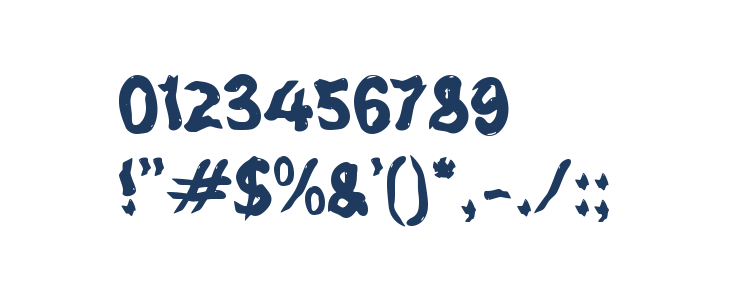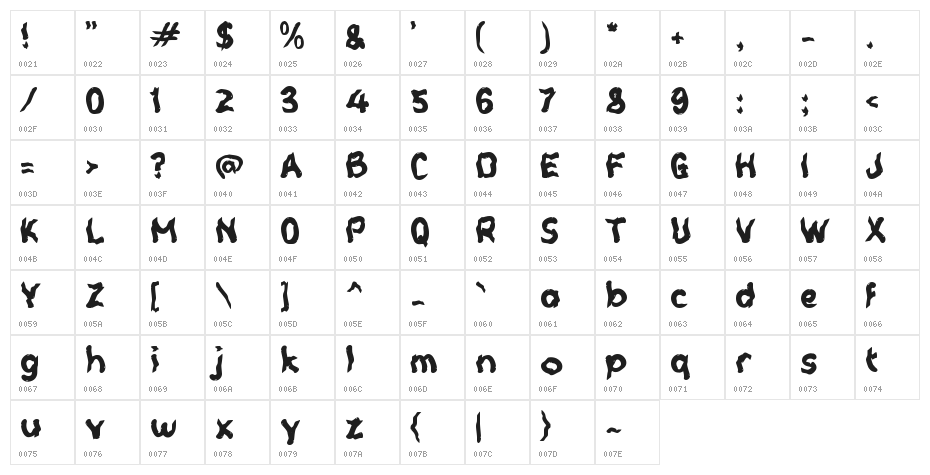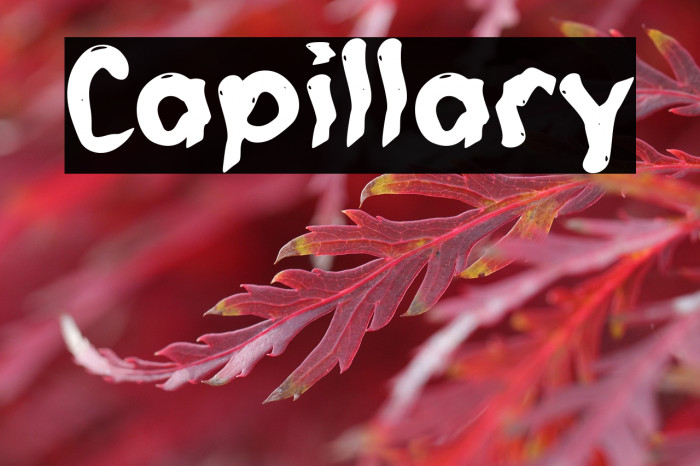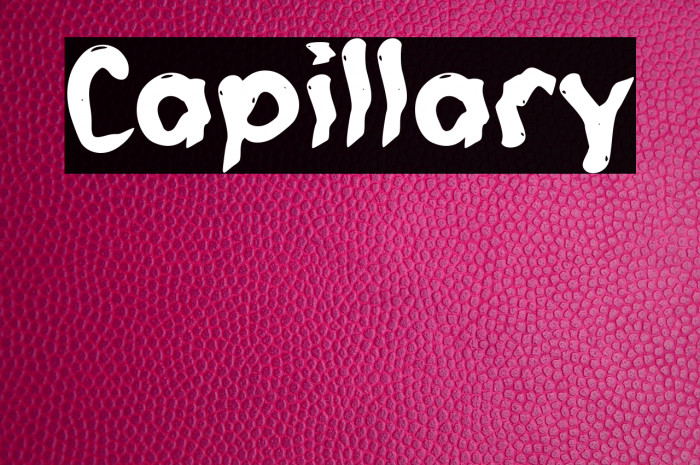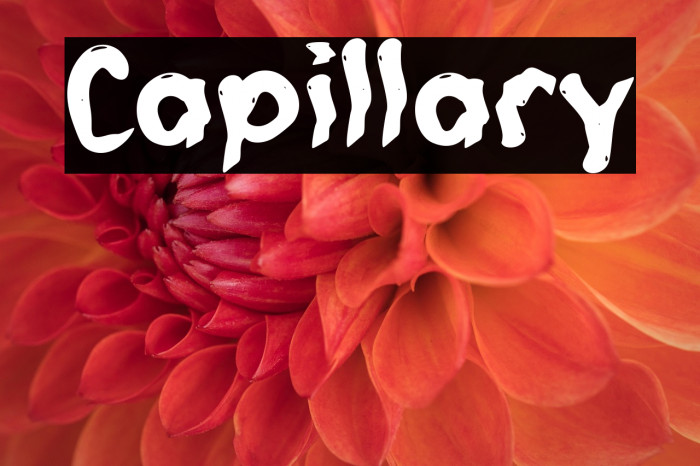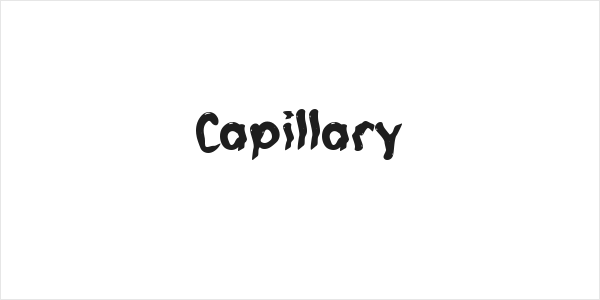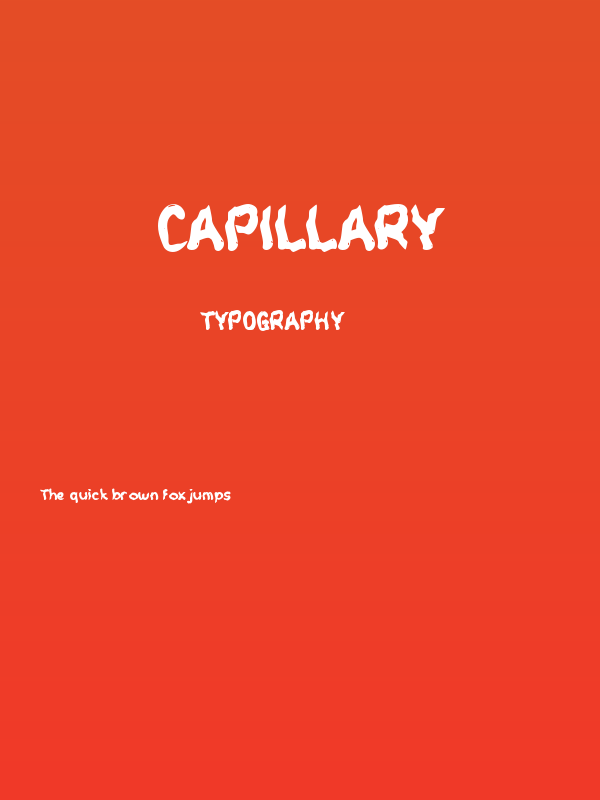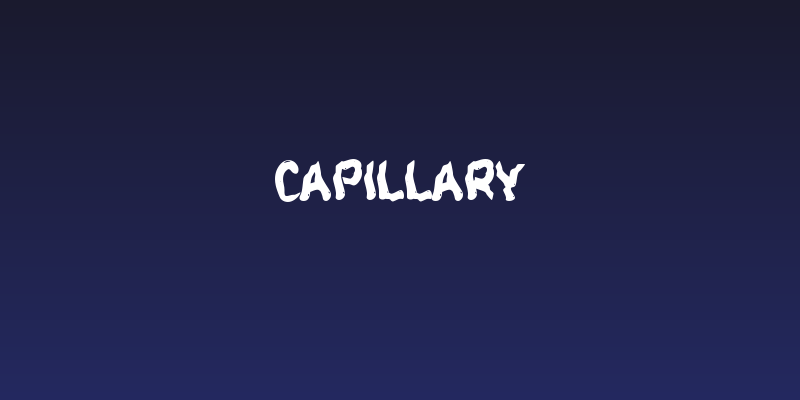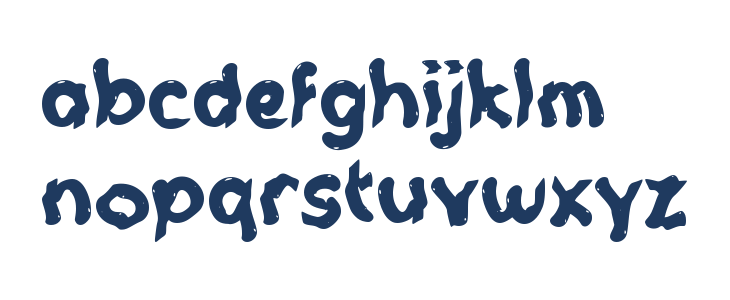
Capillary Font
Capillary Description
This font features a bold and playful design with a hand-drawn aesthetic. The characters are irregular and organic, giving them a lively and dynamic appearance. The strokes are thick and uneven, contributing to a whimsical and artistic feel. This style is reminiscent of graffiti or street art, making it stand out with its unique and creative flair. The font's boldness ensures high visibility, while the irregular shapes add a touch of informality and fun. It's perfect for projects that require a distinctive and eye-catching look.
| Proposed Projects | Ideal for posters, album covers, children's books, and creative branding. |